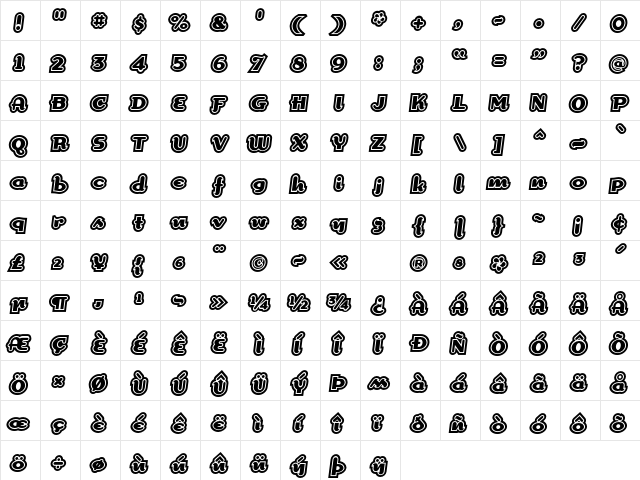
DogmaExtraOutline Extra Outline
Design Context for DogmaExtraOutline Typeface
DogmaExtraOutline brings ornamental detail and strong personality to headlines and identities, where visual impact matters more than quiet functionality.
Font Pairing: Pair with a clean neutral sans-serif for body copy to let DogmaExtraOutline's character lead without overwhelming the composition.
Pro Tip: Use DogmaExtraOutline exclusively at display sizes — it was designed to be seen, not read at length. Let a neutral companion handle body copy.